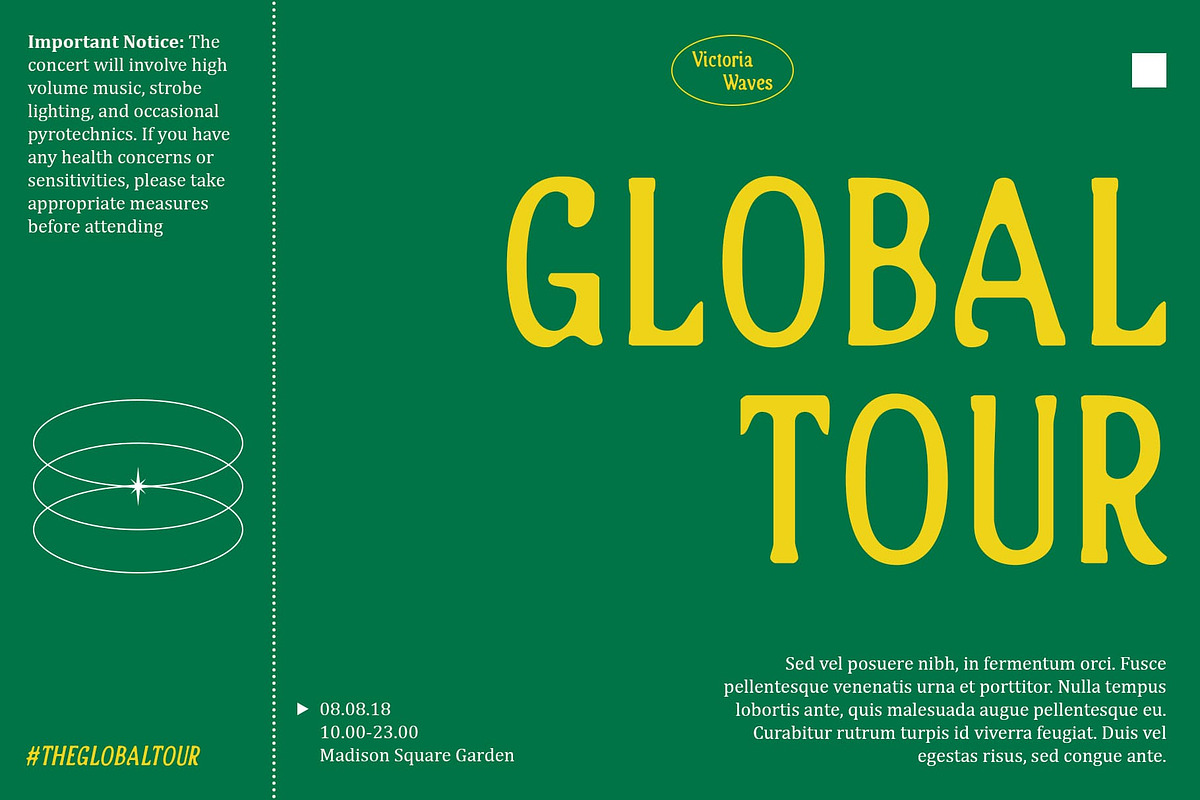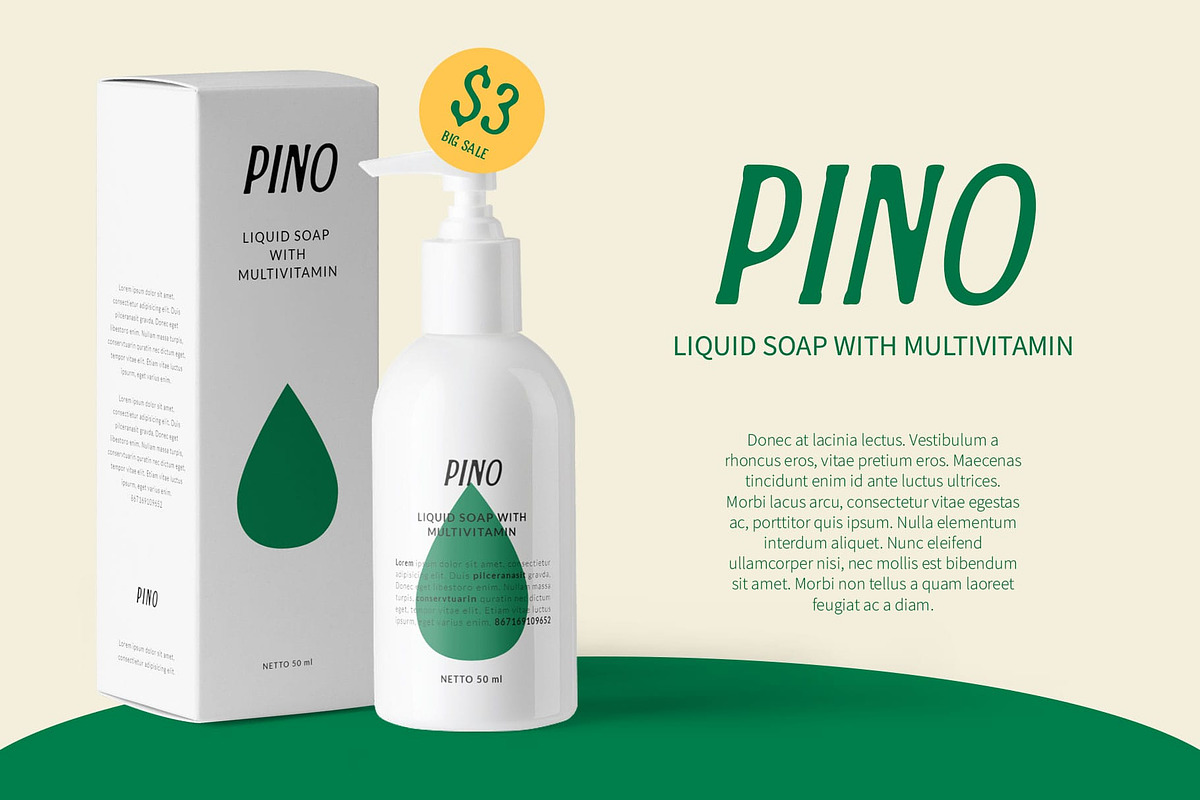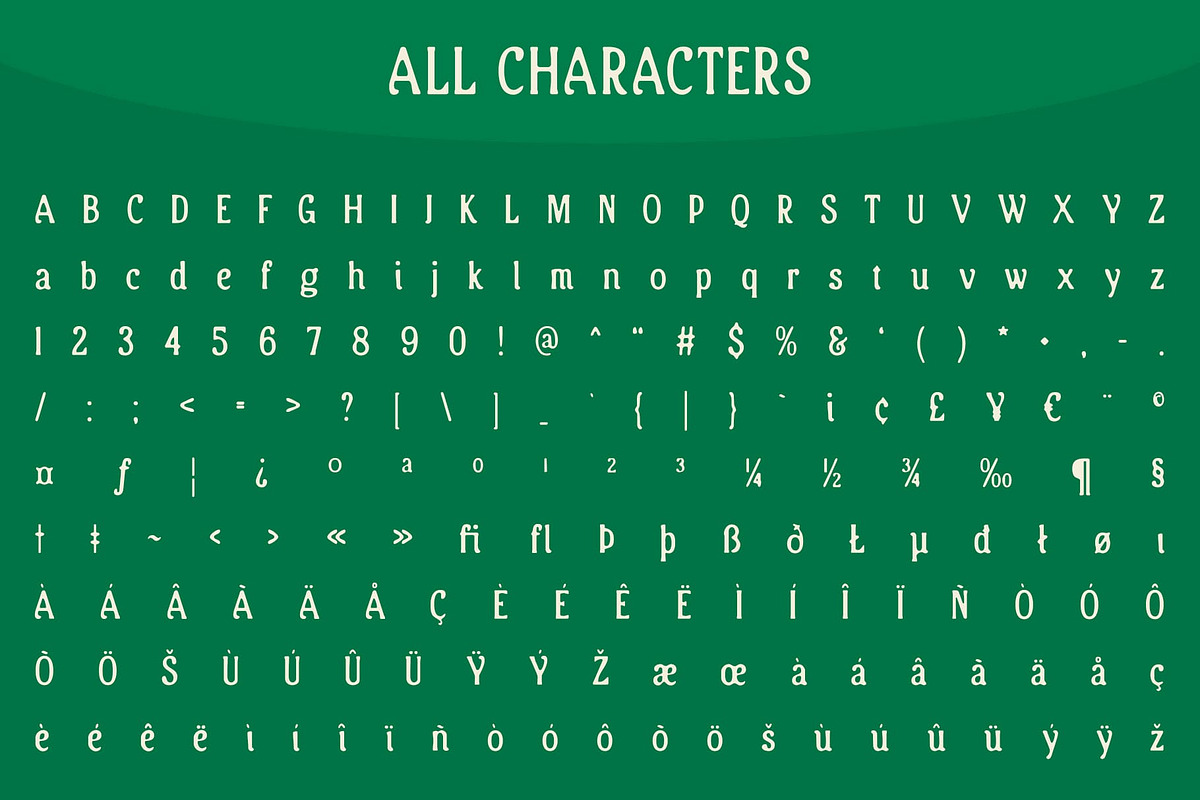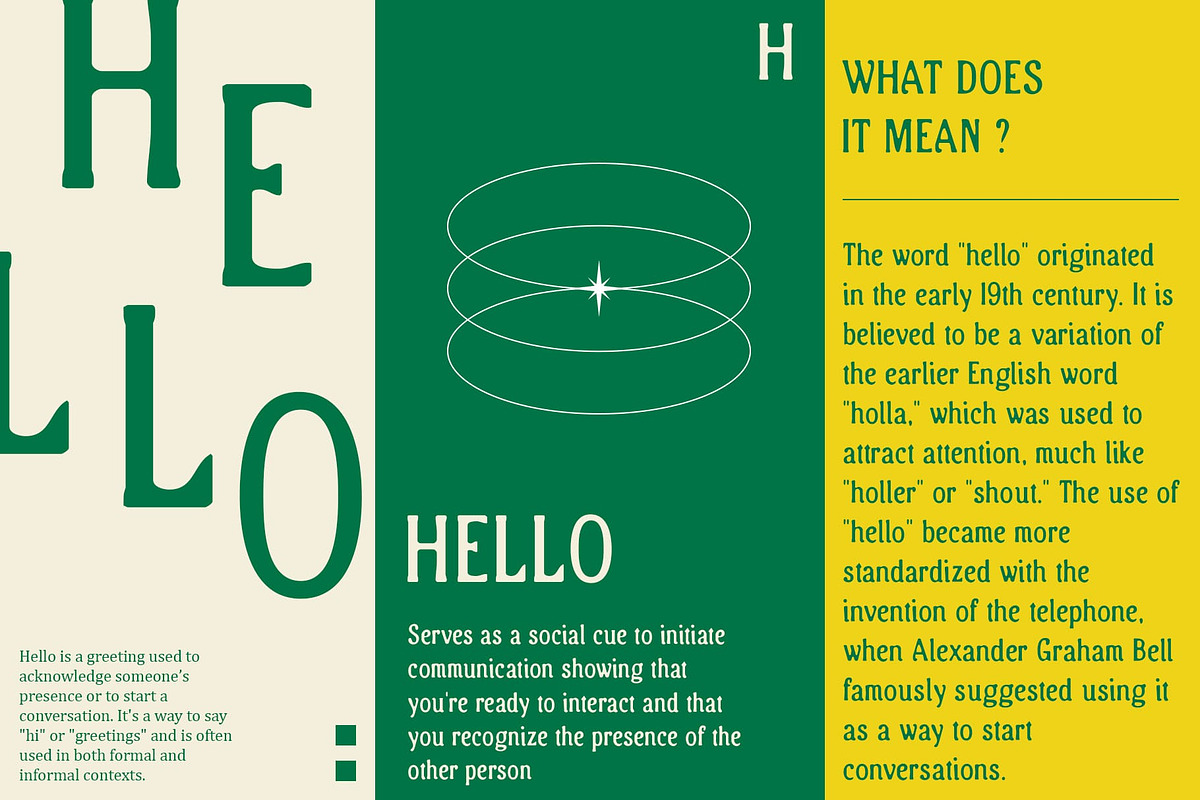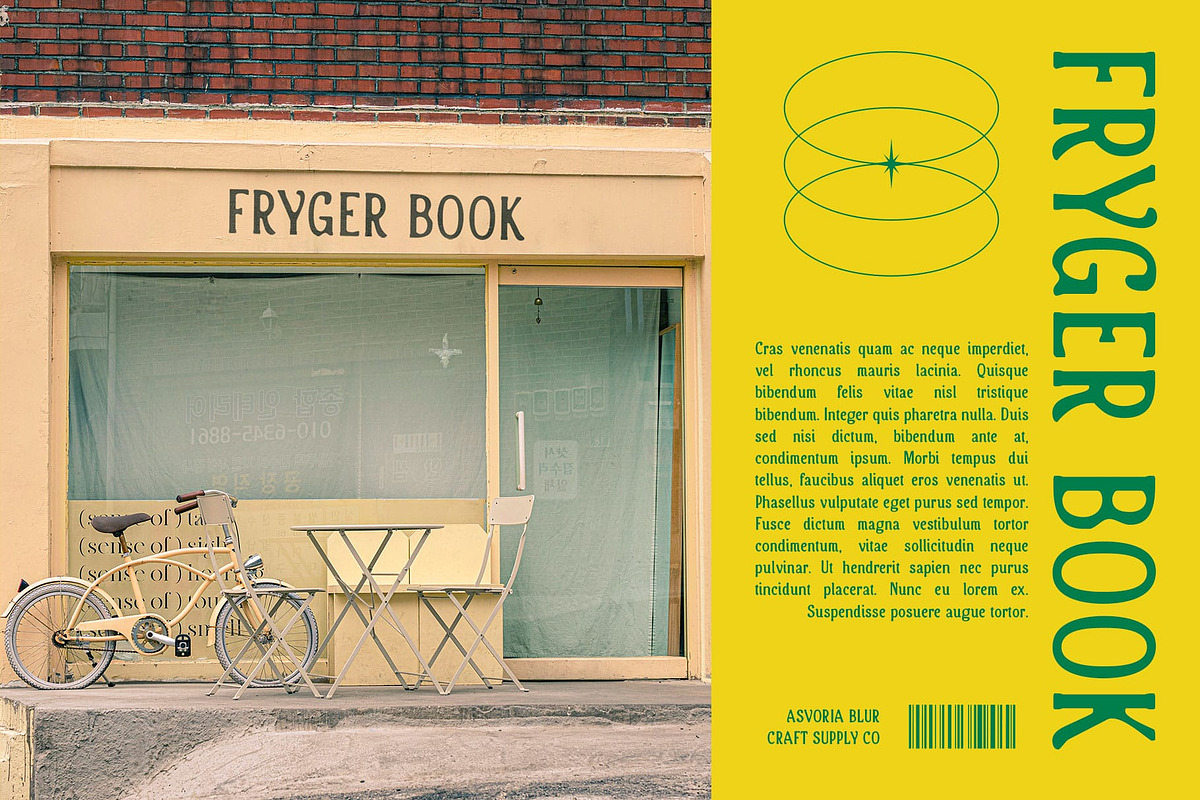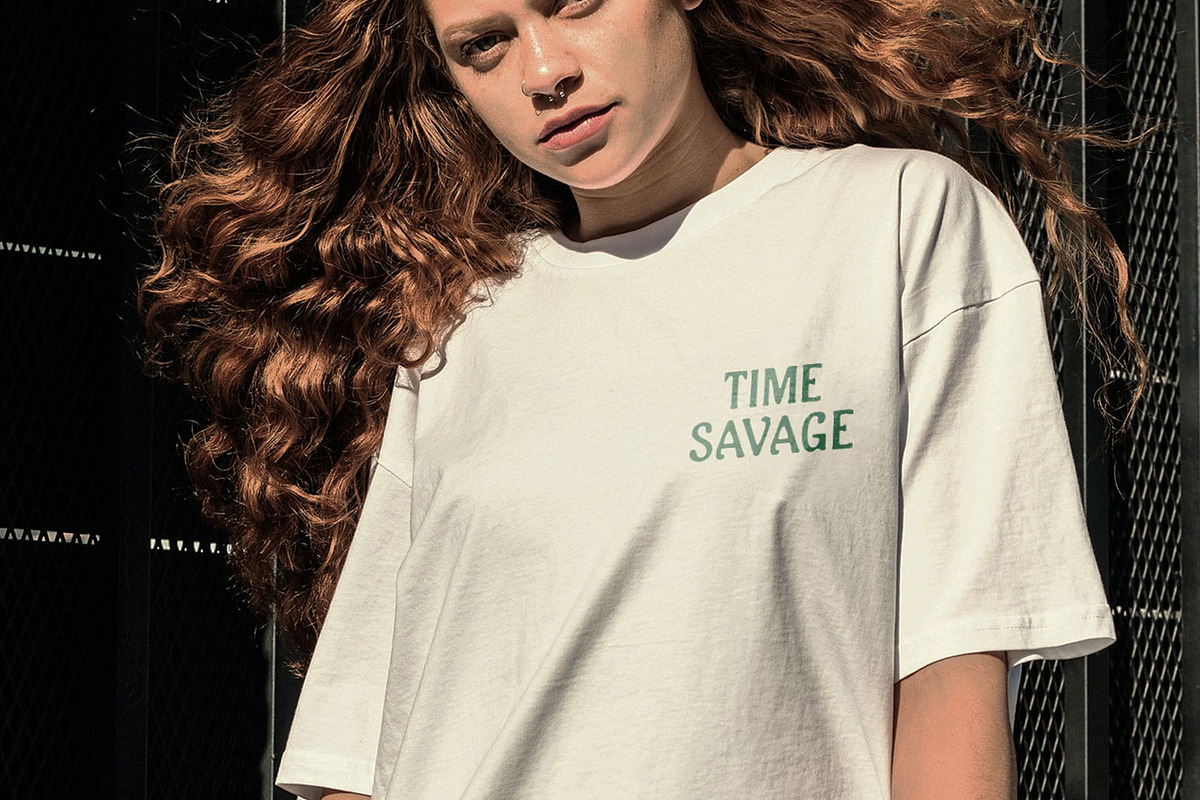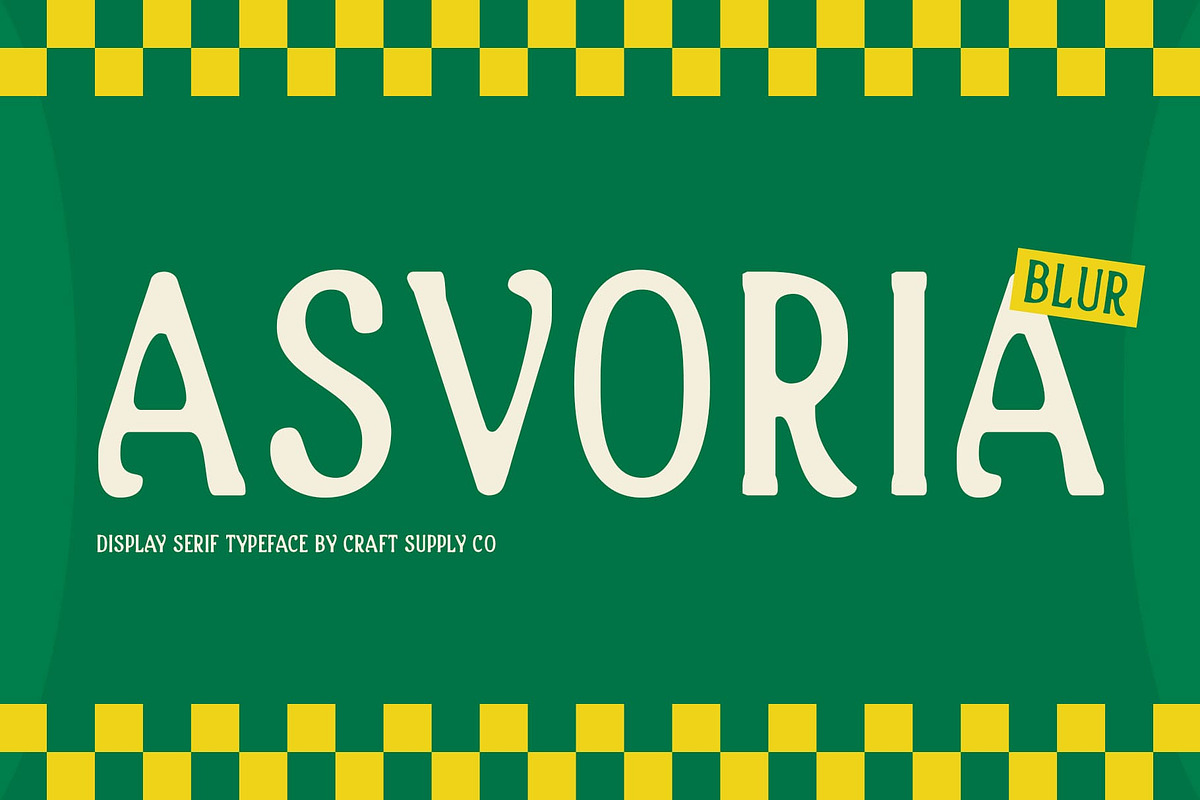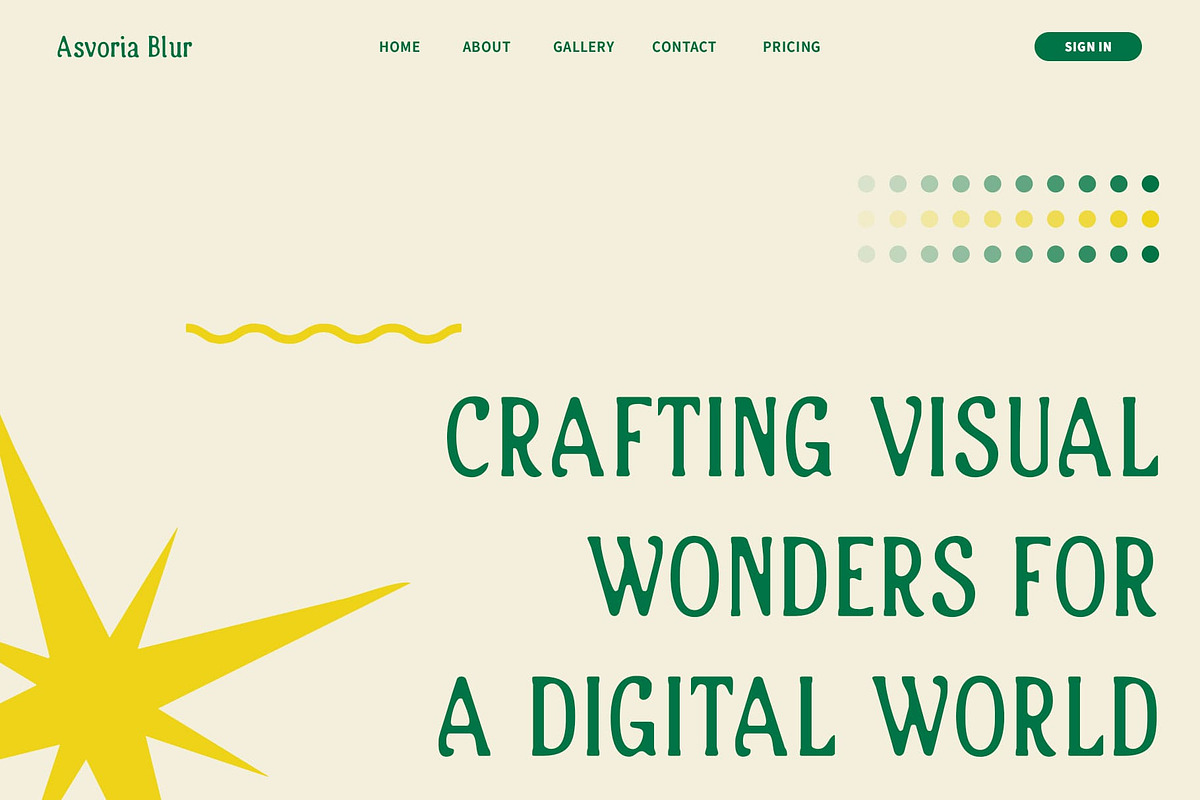
Asvoria Blur
Asvoria Blur – Renaissance-Inspired Serif Font: Classic Beauty with Modern Depth
Renaissance-Inspired Serif with a Blur Effect Asvoria Blur is a serif font inspired by the elegance and grandeur of the Renaissance era. It features classic forms with intricate details, including elaborate serifs and balanced proportions, embodying the beauty and luxury of Renaissance art and design.
Classic Elegance with a Modern Twist The blur effect applied to Asvoria Blur introduces a modern twist to its classic beauty. This effect adds dimension and depth, creating a smooth, retro vibe that blends traditional elements with a slightly blurred visual for a captivating and unique appearance.
Perfect for Luxurious and Elegant Designs Asvoria Blur is ideal for designs that require a luxurious and elegant look. Whether you’re designing formal invitations, high-end branding, promotional materials, or editorial layouts, this font offers a sophisticated and timeless appeal that enhances any project.
Versatile for High-End Creative Projects With its blend of classic beauty and modern depth, Asvoria Blur is a versatile choice for a range of high-end creative projects. It captures the essence of Renaissance elegance while offering a contemporary edge, making it perfect for creating standout, character-filled impressions in any design.